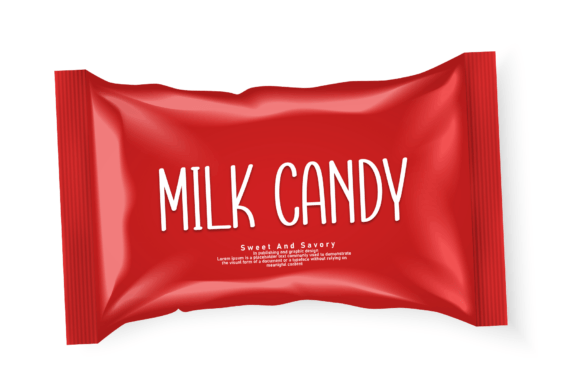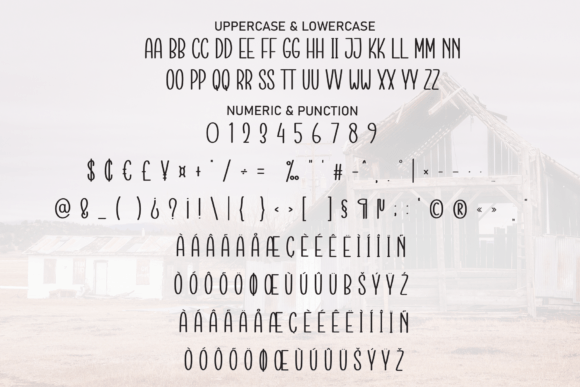
Rustic Farmhouse Font
Rustic Farmhouse is a charming handmade display font that brings a cozy, country feel to your text. Its warm and uneven letters mimic the look of wood and handcrafted signs, making it perfect for creating a welcoming atmosphere in designs like invitations, home decor, and rustic branding. This font adds a touch of nature and simplicity to any project.